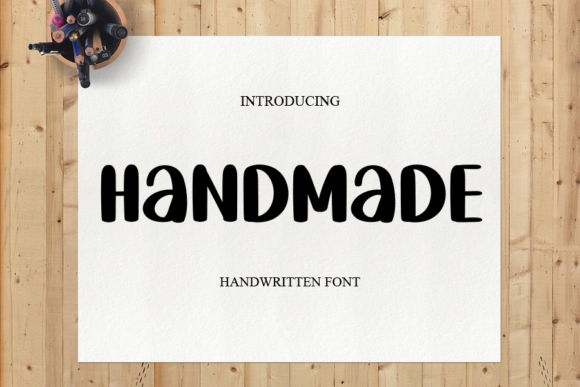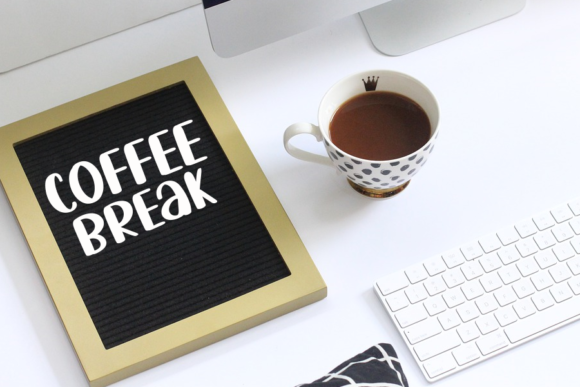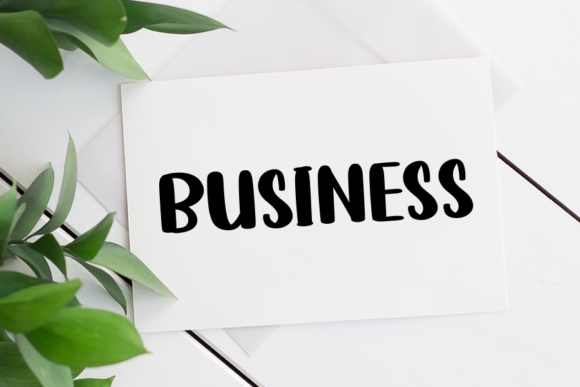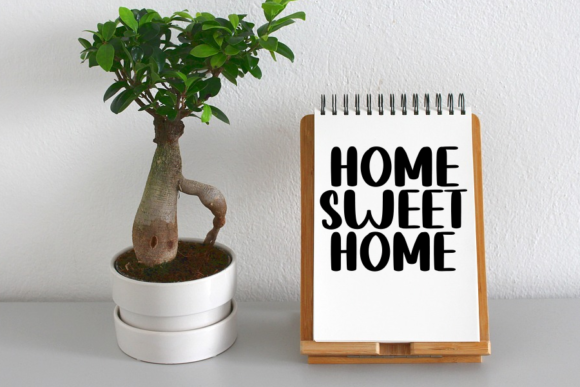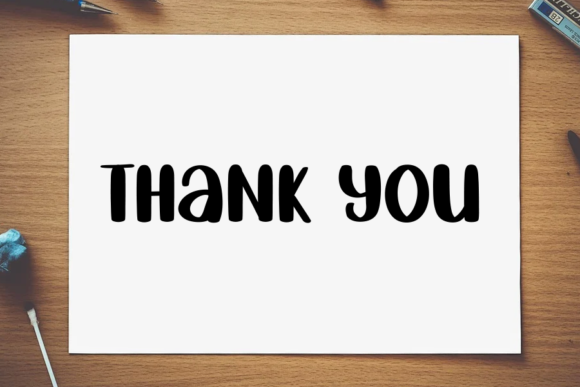
Handmade is a simple, trendy and adaptable handwritten font. Its informal style and casual vibe will make this font a go-to choice for each of the creations that require a relaxed touch.